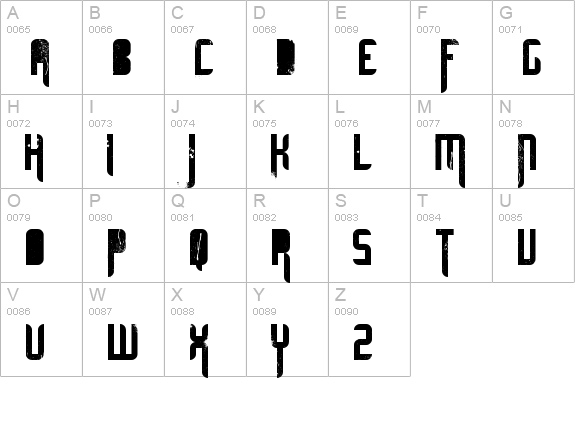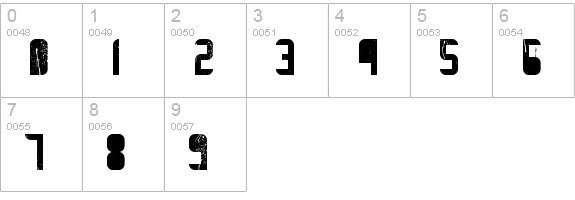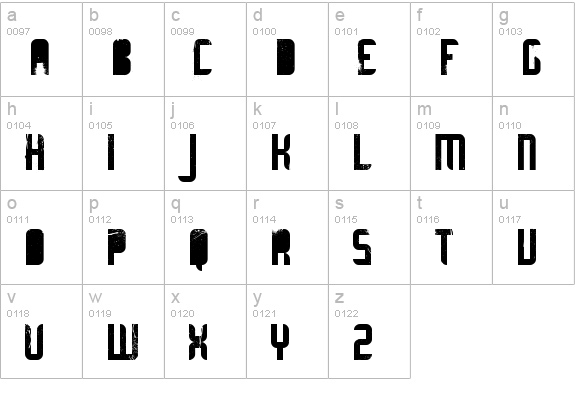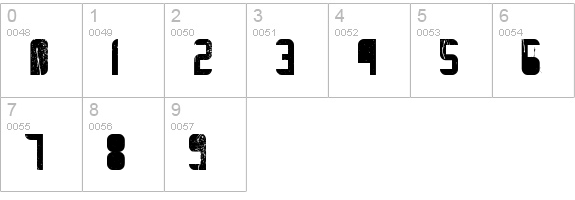
ultimate MIDNIGHT Font Details
Introducing the ultimate MIDNIGHT font, a stunning and captivating typeface that will add a touch of mystery and elegance to your designs. This font is perfect for those seeking a bold and impactful look, with its sleek and sophisticated lines that effortlessly blend modernity with a hint of classic charm. With its unique and intricate letterforms, MIDNIGHT font is sure to make a statement in any project. Whether you're designing a logo, creating eye-catching headlines, or crafting invitations for a special event, this font will elevate your work to new heights of creativity. Its versatility allows it to shine in both digital and print media, making it a must-have for designers of all kinds. The best part? MIDNIGHT font is available for free download at FontsMarket.com. Yes, you read that right – this exceptional font can be yours with just a few clicks. FontsMarket.com is a trusted source for quality fonts, and they are proud to offer MIDNIGHT font as a complimentary addition to their extensive collection. Simply visit their website, browse their vast library, and take advantage of this incredible opportunity to enhance your designs without spending a dime. Download MIDNIGHT font today and unleash your creativity. Whether you're a professional designer or a passionate hobbyist, this font will empower you to create visually stunning and impactful designs that leave a lasting impression. Don't miss out on this extraordinary font – get it for free at FontsMarket.com and let your imagination run wild.